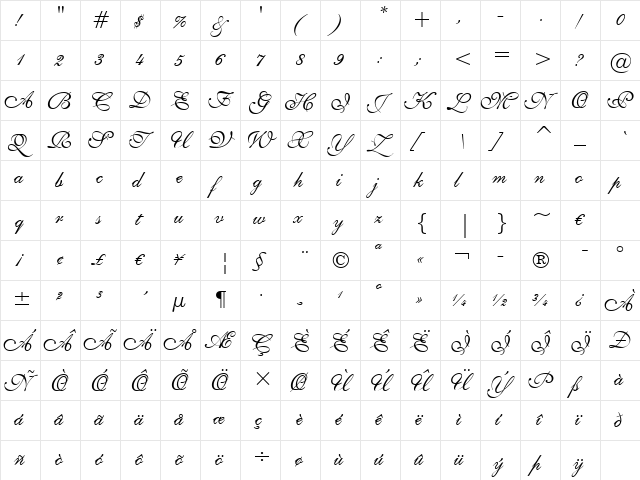
English111 Presto BT Regular
Design Context for English111 Presto BT Typeface
English111 Presto BT takes a measured approach to typography — its balanced proportions and neutral character make it a reliable workhorse for both digital and print work.